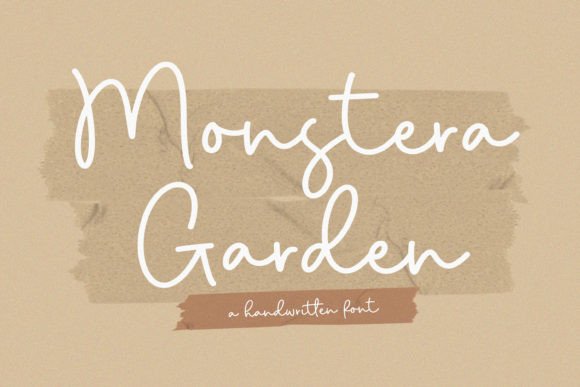
Monstera Garden Font
Monstera Garden is a stylish and incredibly elegant script font. It looks stunning on wedding invitations, thank you cards, quotes, greeting cards, logos, business cards, and every other design which needs a handwritten touch.